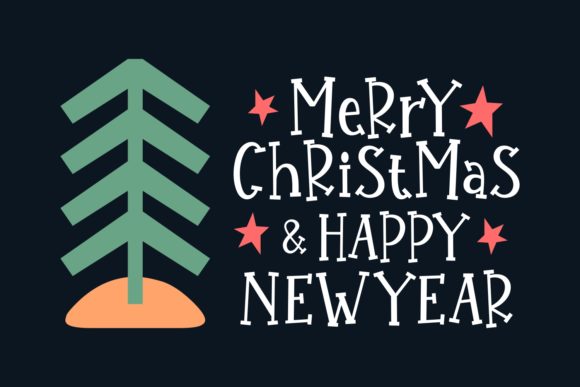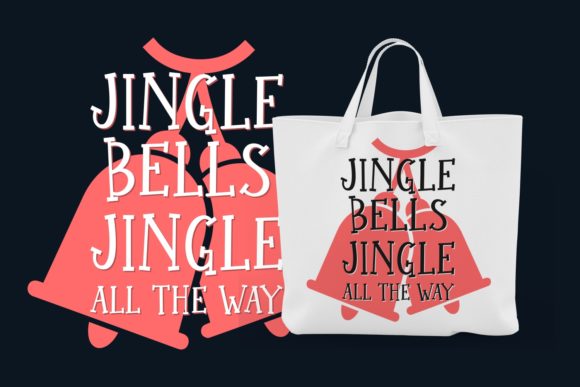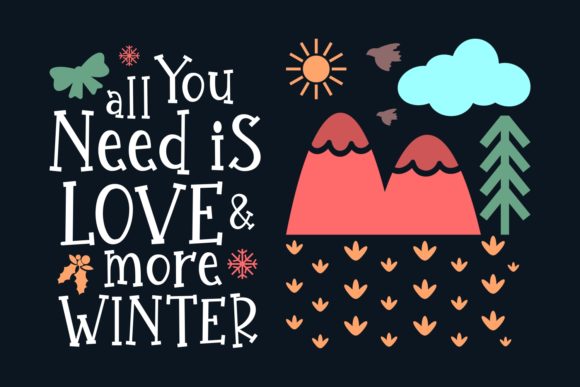
The Magic of Beautiful Christmas Font
It’s that time of the year when creativity knows no bounds, and the festive spirit takes over. As you sit amidst twinkling lights, snowflakes gently falling outside, and the aroma of hot chocolate wafting through the air, you’re suddenly hit with an idea – a Christmas design that will make everyone’s heart skip a beat. You envision a beautiful card, a festive banner, or a merry poster, but you’re stuck on the perfect font. This is where the Beautiful Christmas Font comes to the rescue.
With its quirky and playful characteristics, this serif font is the perfect companion for your festive designs. Beautiful Christmas Font is designed to add a touch of whimsy and charm to your creations, making it a valuable asset for designers looking to spread holiday cheer. Whether you’re a seasoned pro or a beginner, this font is sure to bring a smile to your face and inspire your creativity.
Beautiful Christmas Font Key Features
- Character Set: This font includes a wide range of characters, including uppercase and lowercase letters, numbers, punctuation marks, and special characters, making it ideal for various design projects.
- Unique Characteristics: The font features a beautiful, elegant design with intricate details and ornaments, making it perfect for creating festive and holiday-themed designs, such as Christmas cards, gift tags, and posters.
Designer Review: Beautiful Christmas Font
Overall, I was quite impressed with the Beautiful Christmas Font. ✨ The font’s playful and whimsical feel immediately caught my attention, and it’s perfect for adding a touch of festive cheer to any design project. ✨ The font’s weight and line variation add depth and visual interest, making it suitable for a wide range of applications, from invitations to social media graphics.
The font’s characters are well-designed, with crisp and clear lines that make it easy to read, even at small sizes. ✨ The font’s kerning is also well-done, ensuring that letters fit together smoothly and without awkward gaps. ✨ This makes it ideal for use in short phrases or sentences where readability is crucial.
While the Beautiful Christmas Font is a great choice for many projects, it’s not without its limitations. ⚠️ One of the main drawbacks is its limited character set, which may make it difficult to use for longer texts or complex typography. ⚠️ Additionally, the font’s festive theme may not be suitable for all types of projects, such as corporate or formal designs.
Conclusion
In conclusion, the Beautiful Christmas Font is a great choice for designers looking to add a touch of festive cheer to their projects. While it may have some limitations, its unique design and well-crafted characters make it a valuable addition to any designer’s toolkit.
- Playful and whimsical feel
- Weight and line variation for added depth
- Well-designed characters and kerning
- Limited character set
- Festive theme may not be suitable for all projects